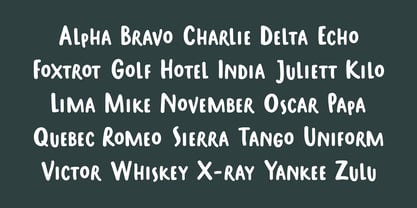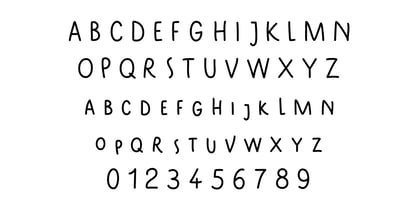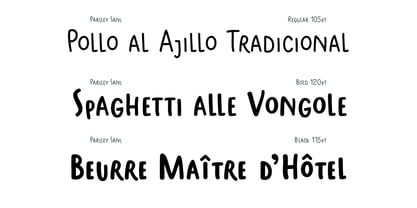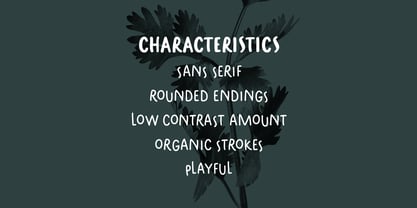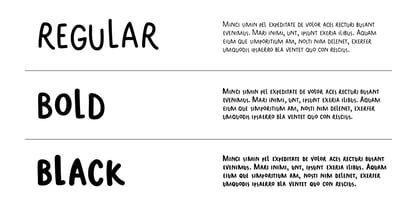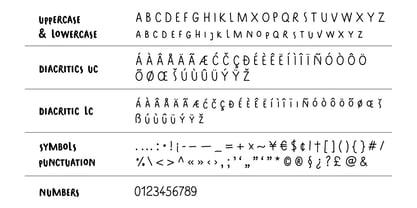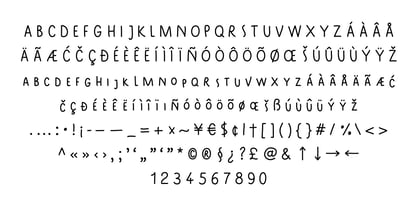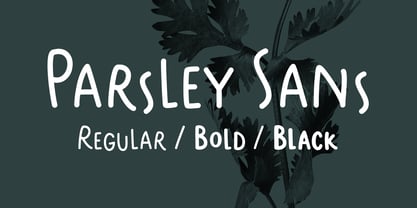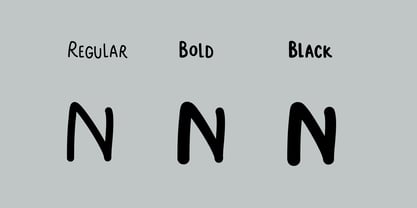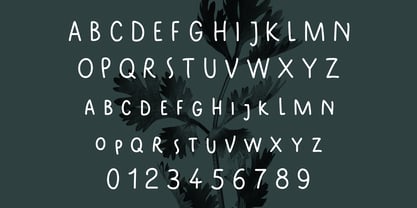
Parsley Sans
The Parsley Sans Font Family was designed by Ivana Bačanek and published by VIDI Visual Design Studio. Parsley Sans contains 3 styles and family package options. More about this family
Parsley Sans was developed from custom hand lettering, for one illustrated book. This distinctive lettering typeface consists of caps letters that are playfully jumping on the baseline. Parsley Sans family could be used well for food packagings, content aimed for children, book covers, branding, high-impact titles, advertising, and more. It could pair nicely with Nunito inspired typefaces that have rounded endings.
Font features:
• 3 weights: Regular, Bold, Black